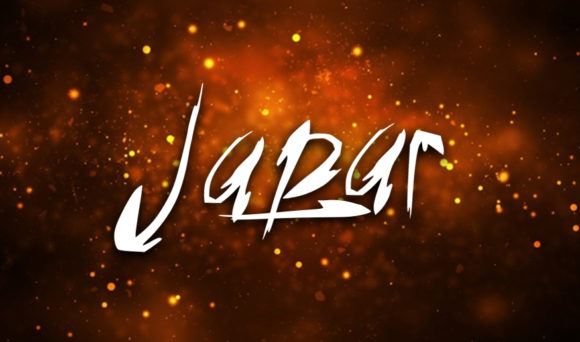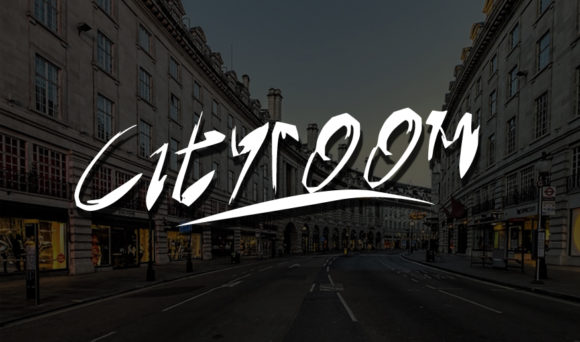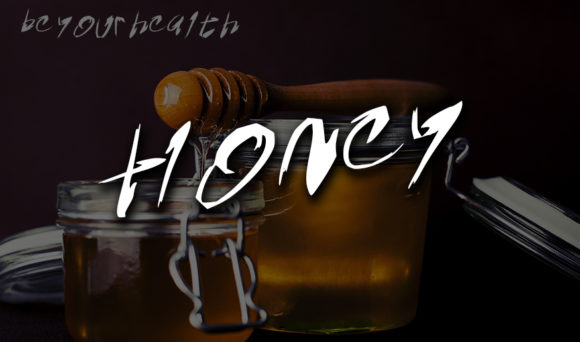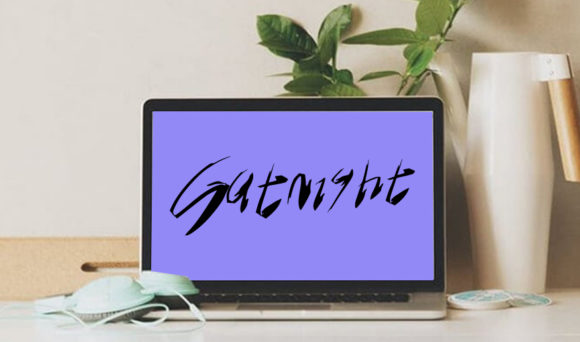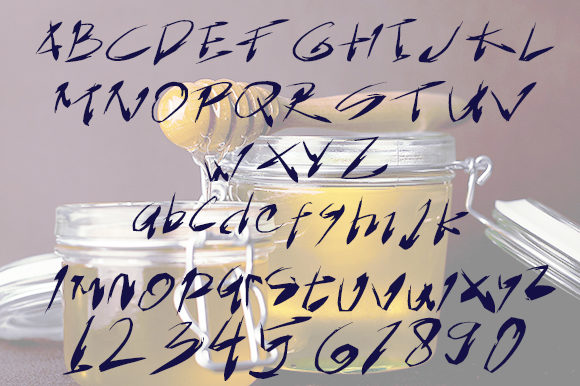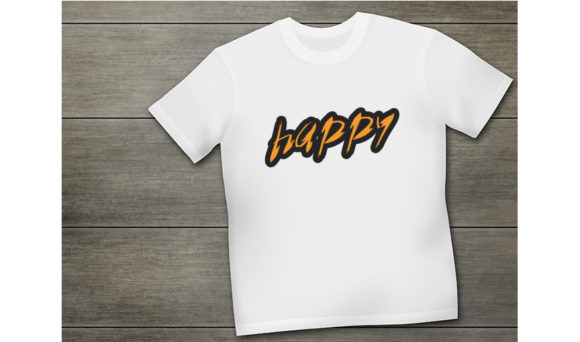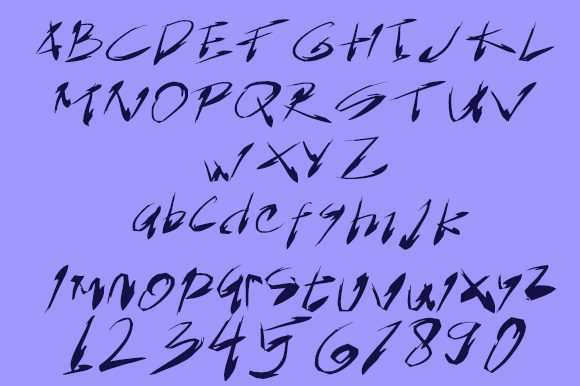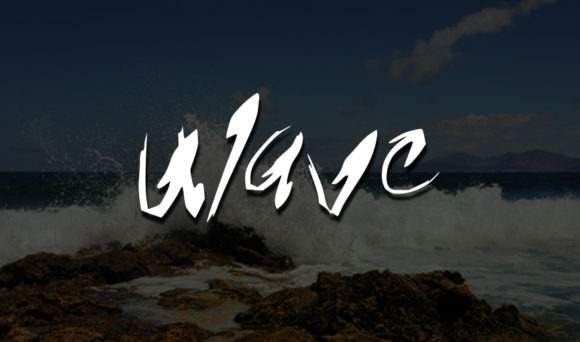
HomeScript FontsJapar Font Script Fonts Japar Font FacebookXPinterestWhatsApp Japar Font Poster 2 Japar Font Poster 3 Japar Font Poster 4 Japar Font Poster 5 Japar Font Poster 6 Japar Font Poster 7 Japar Font Poster 8 Japar Font Poster 9 Japar Font Poster 10 About Japar Font Japar is a bold and urban handwritten font with a rough edge. It will put a contemporary twist on any design idea. DOWNLOAD ON CREATIVE FABRICAThis font is sold and delivered by Creative Fabrica. Font Canyon may earn a commission if you buy through this link. People also explored Masthan Font Strong Signature Font Delyma Font The Expressions Font Teacher Font Orange Coffee Font Mochafloat Font Bettina Script Font Little Bunny Font 341 0 TagsJapar Font Previous articleThalia FontNext articleAcelire Rosse Font LEAVE A REPLY Cancel reply Comment: Please enter your comment! Name:* Please enter your name here Email:* You have entered an incorrect email address! Please enter your email address here Website: Save my name, email, and website in this browser for the next time I comment. Personal Use Free Mahisya Personal Use Free Read more about this font Joystix Monospace Personal Use Free Read more about this font Predators Personal Use Free Read more about this font Deco Neue Wilde Personal Use Free Read more about this font BLOG Free vs Paid Fonts: Why Investing in Premium Fonts Is Worth It Free vs Paid Fonts: Why Premium Fonts Are Worth It in 2025 The debate of free vs paid fonts continues in the design world. While... Best Fonts for YouTube Videos: Make Your Thumbnails Stand Out Exploring Font Trends Fonts That Capture the Spirit of New York City